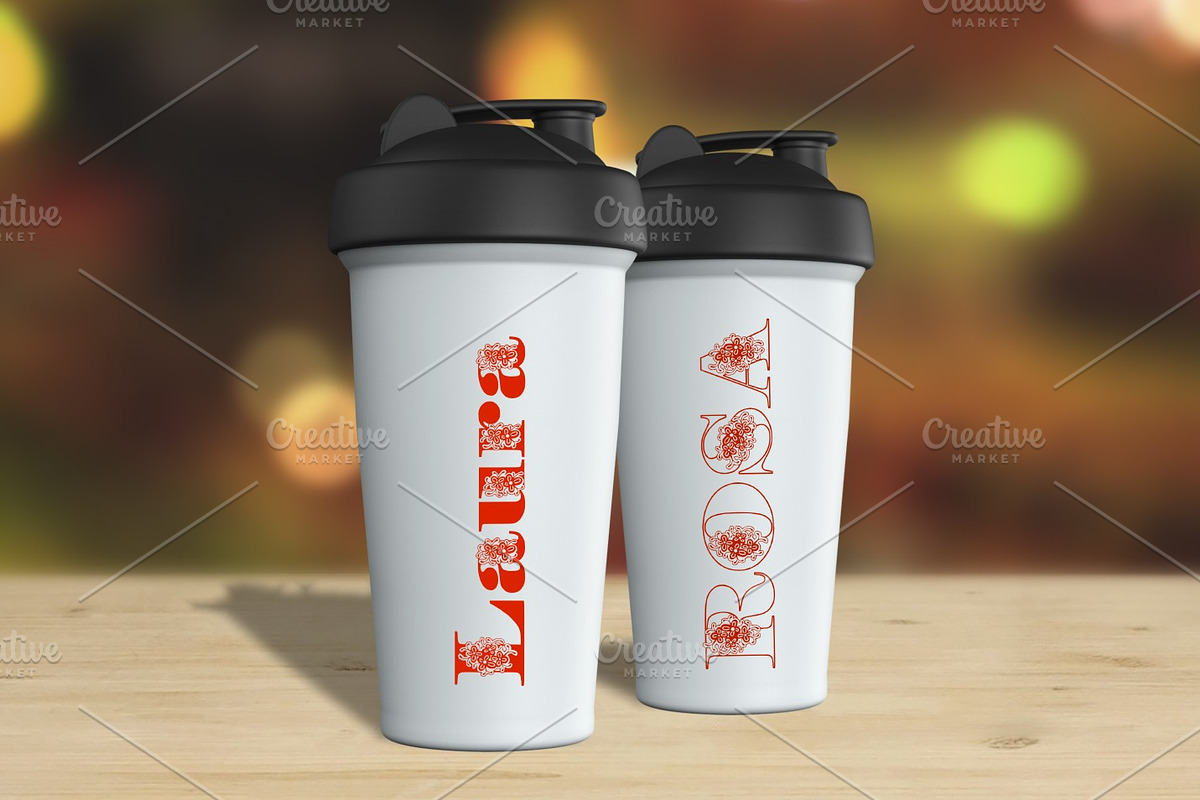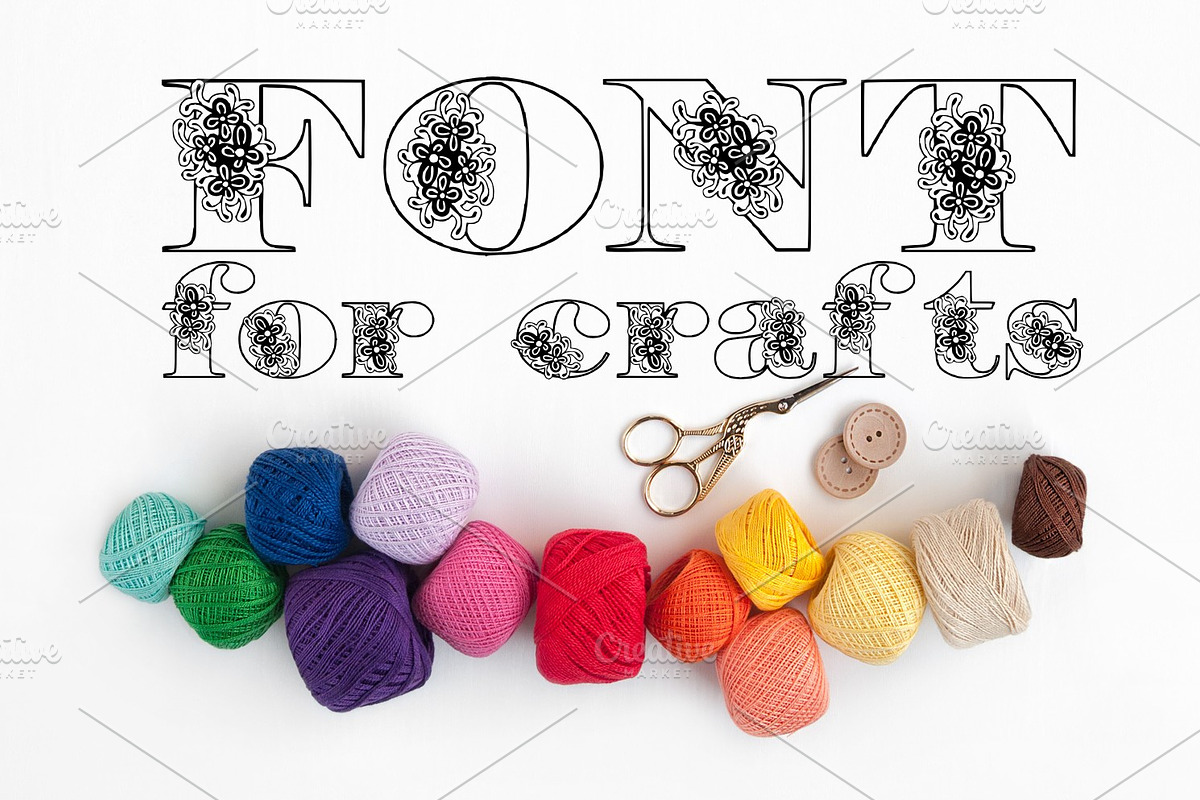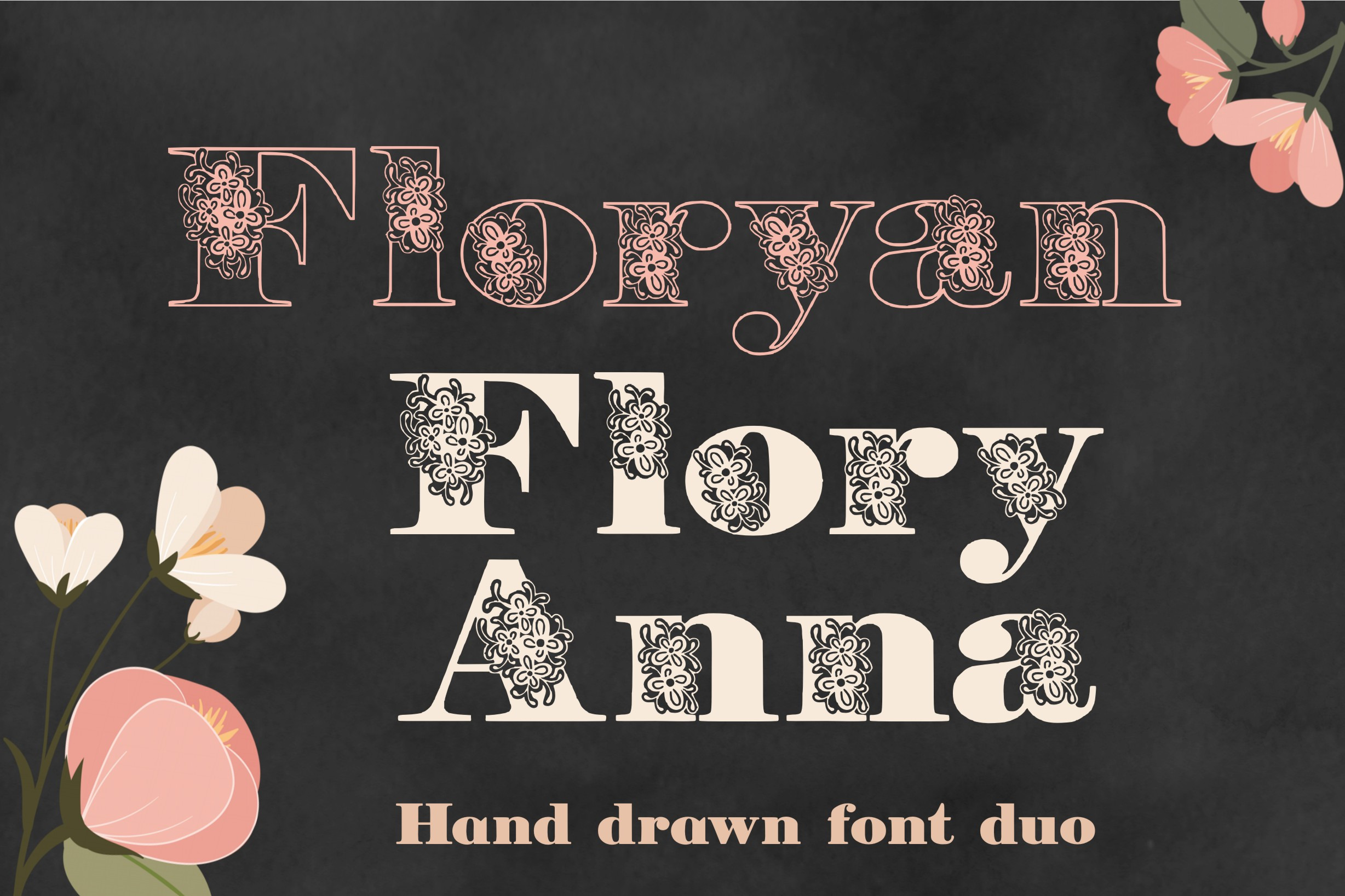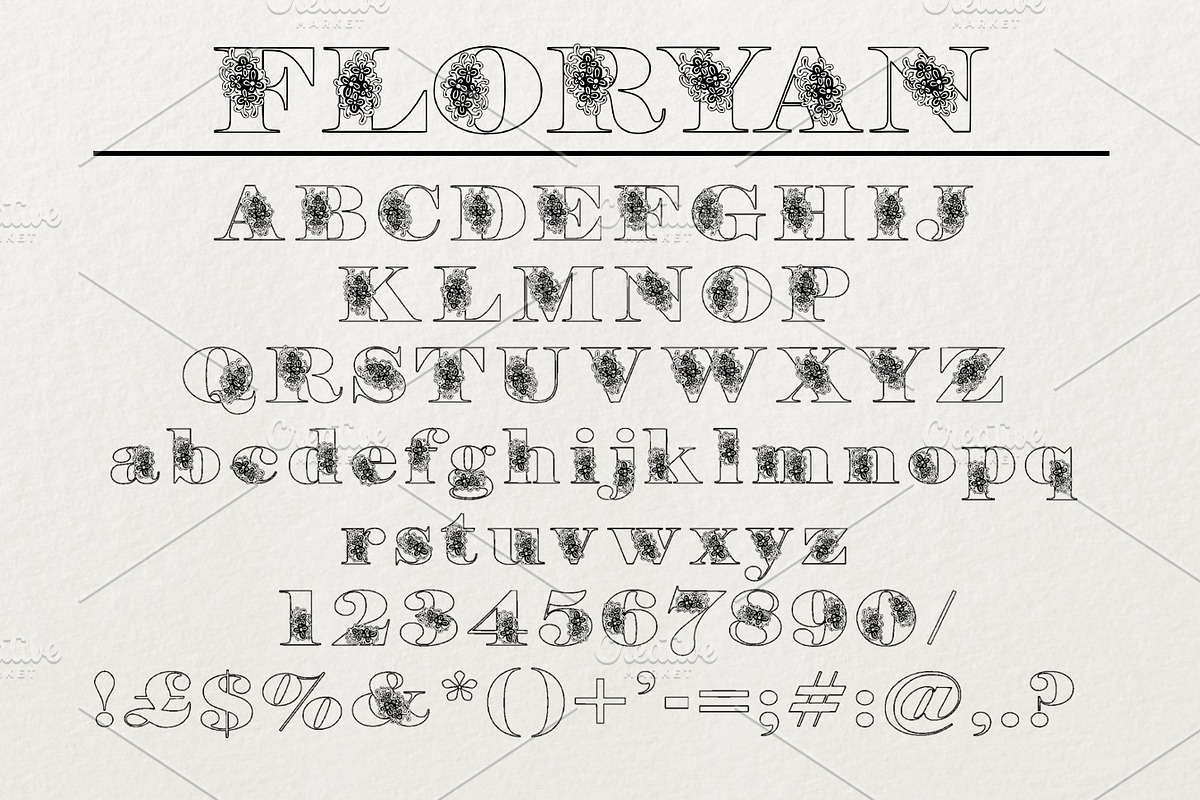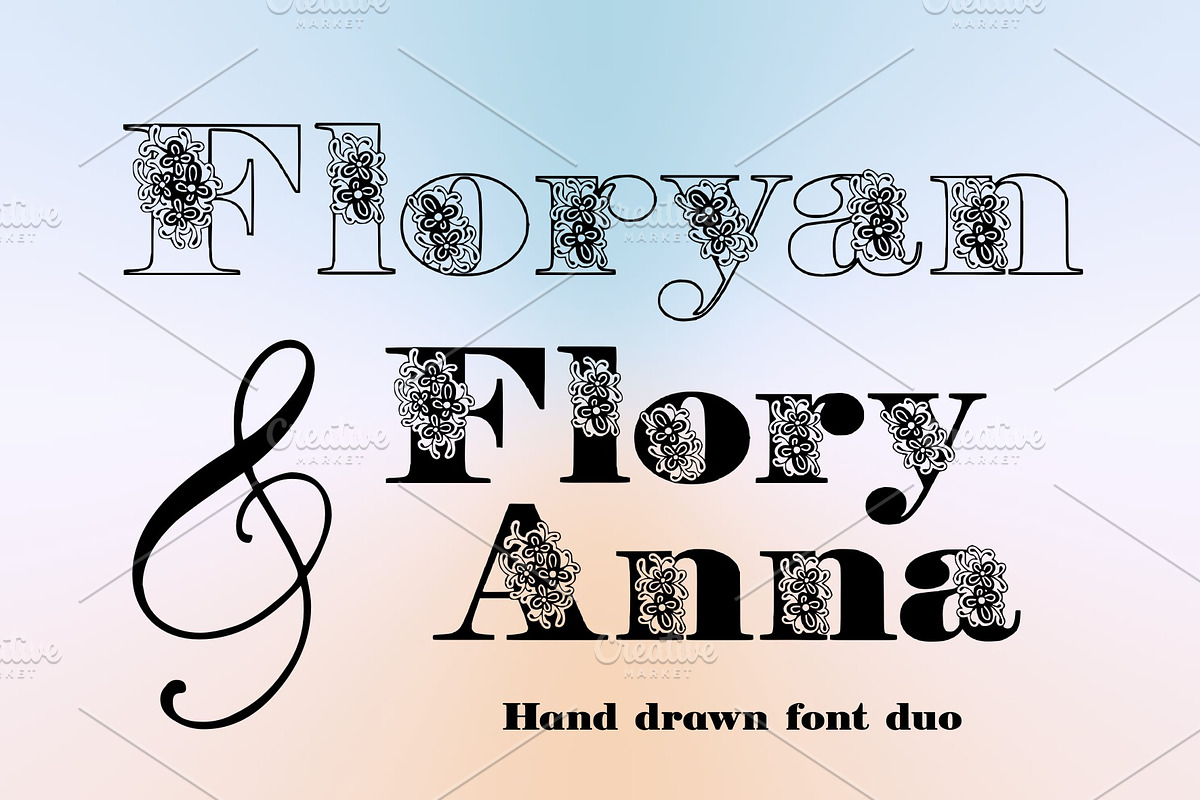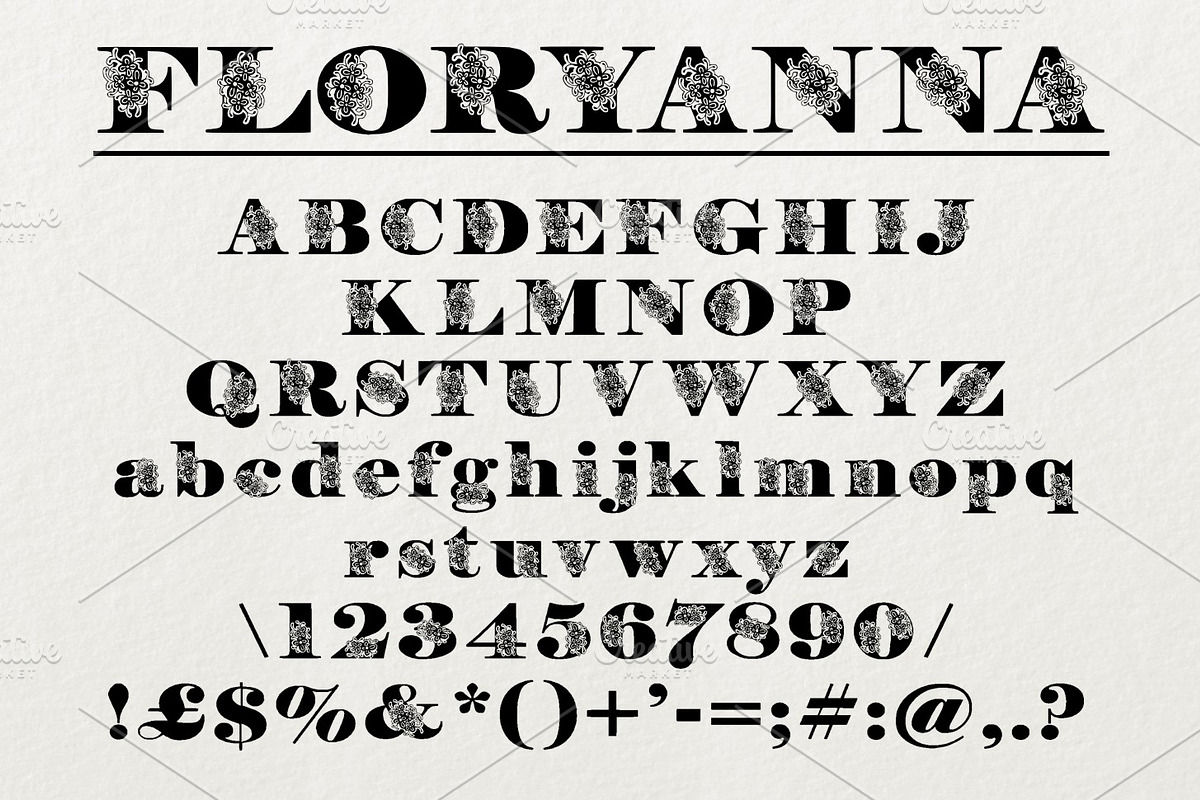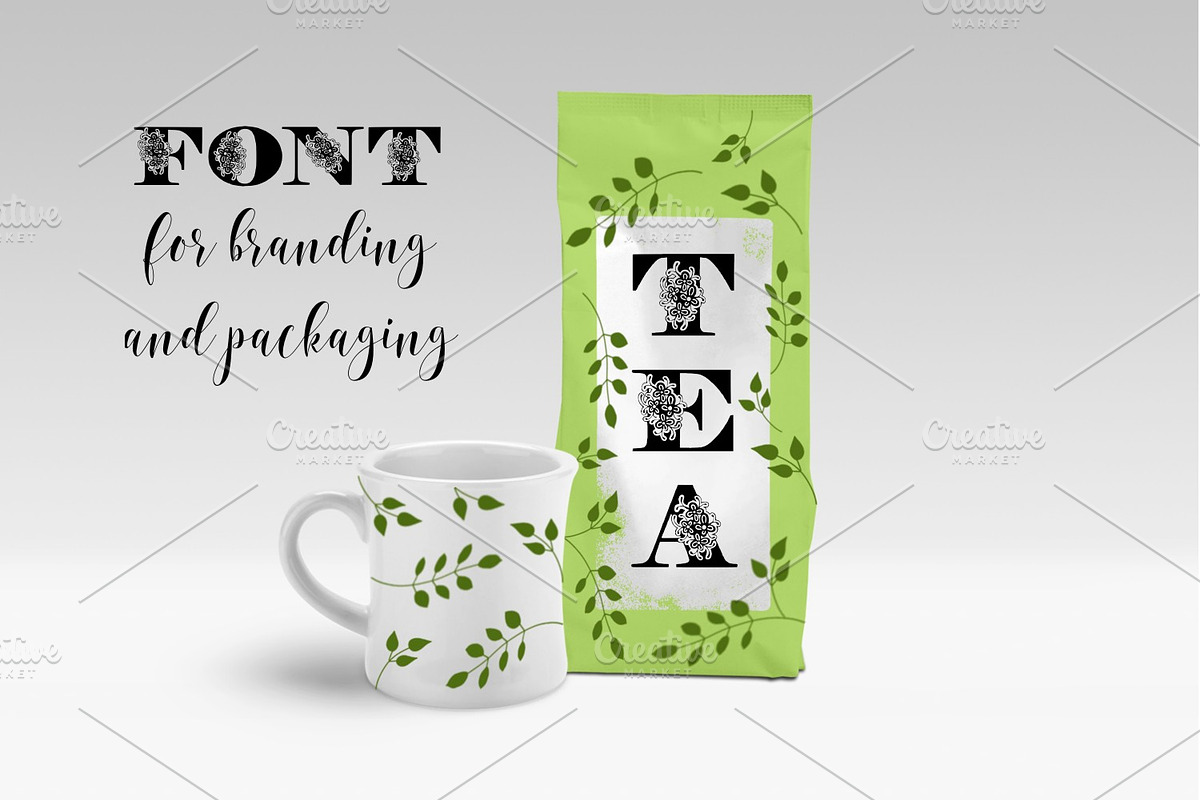
Floryan & FloryAnna Font Duo
Introducing Floryan and FloryAnna, two carefully hand crafted typefaces. One is a ligh version for delicate projects, the other one is the solid version.
Floryan and FloryAnna are great for cards, wedding designs, titling, signage, logo, poster, flyers or t-shirts design, headlines, and more!